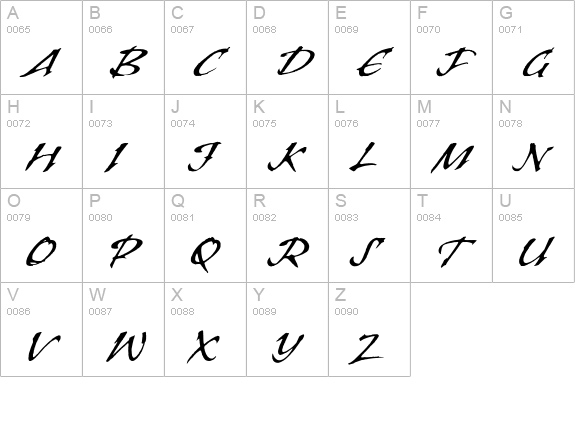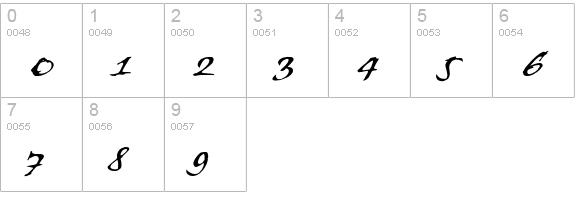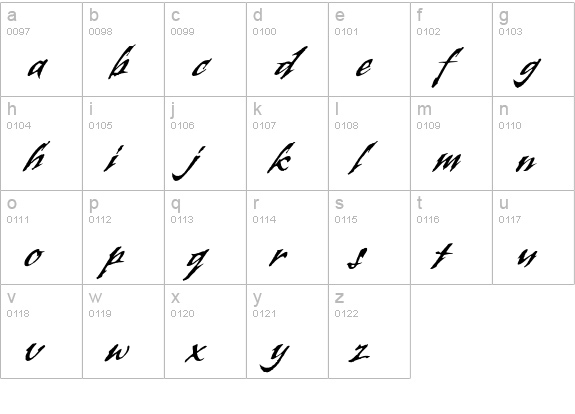
Banshee Std Font Details
Banshee Std font is a modern and stylish typeface that exudes elegance and sophistication. With its sleek lines and contemporary design, Banshee Std is perfect for a wide range of design projects, from branding and advertising to invitations and packaging. This versatile font features a clean and crisp look that is both easy to read and visually appealing. Its smooth curves and balanced letterforms give Banshee Std a timeless quality that will make your designs stand out. What's even better is that Banshee Std is available for free download at FontsMarket.com, making it accessible to designers and creatives of all levels. Don't miss out on this fantastic opportunity to enhance your projects with this beautiful and versatile typeface.